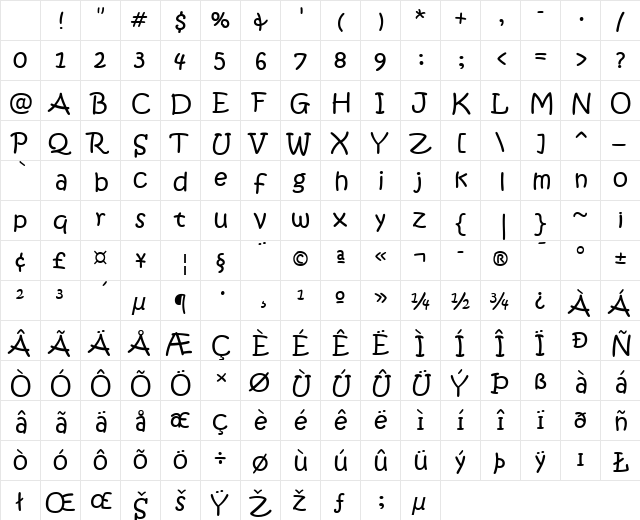
Complete KristenITC Normal glyph index. Displaying only characters natively supported by KristenITC Normal font.
KristenITC is a composed and adaptable typeface that performs quietly and consistently across a wide range of design contexts.
Pro Tip: Use KristenITC in both headline and body roles to test its range before committing to a single application.
Who designed the KristenITC Normal font?